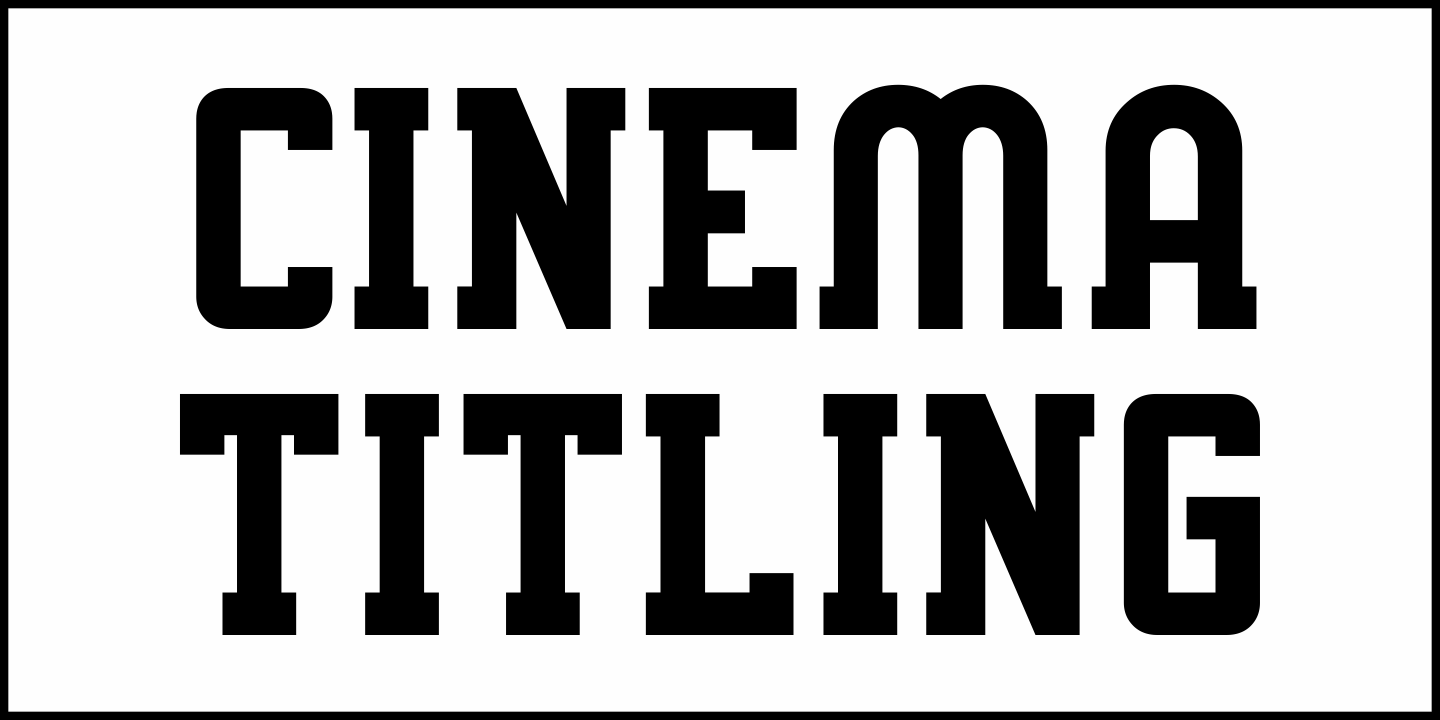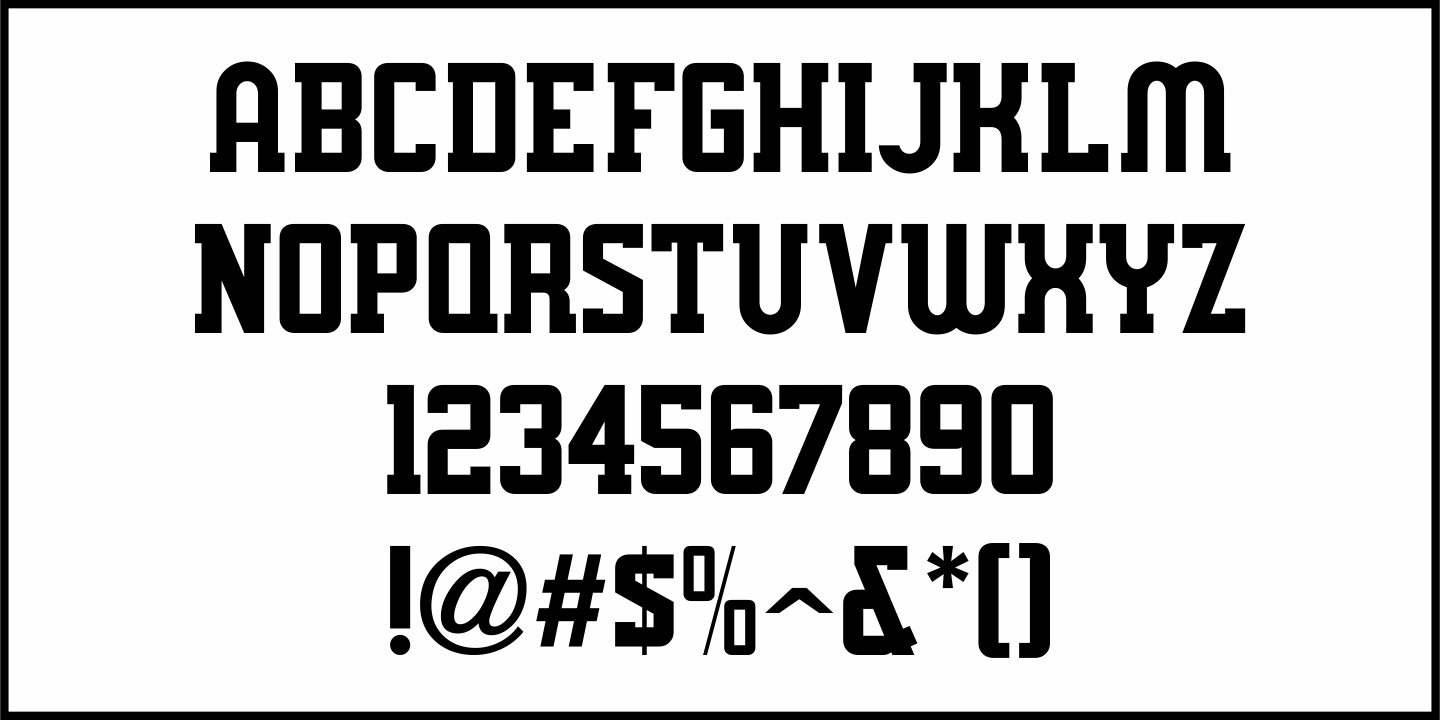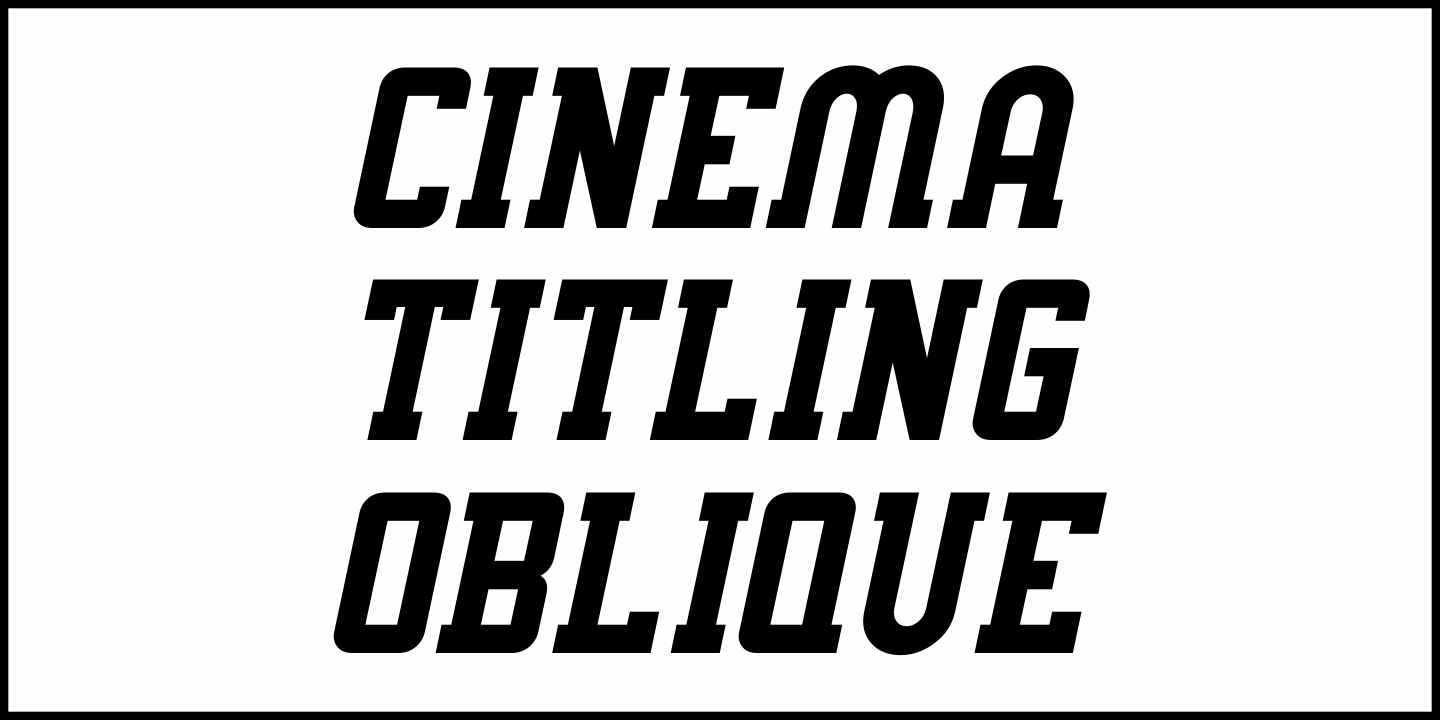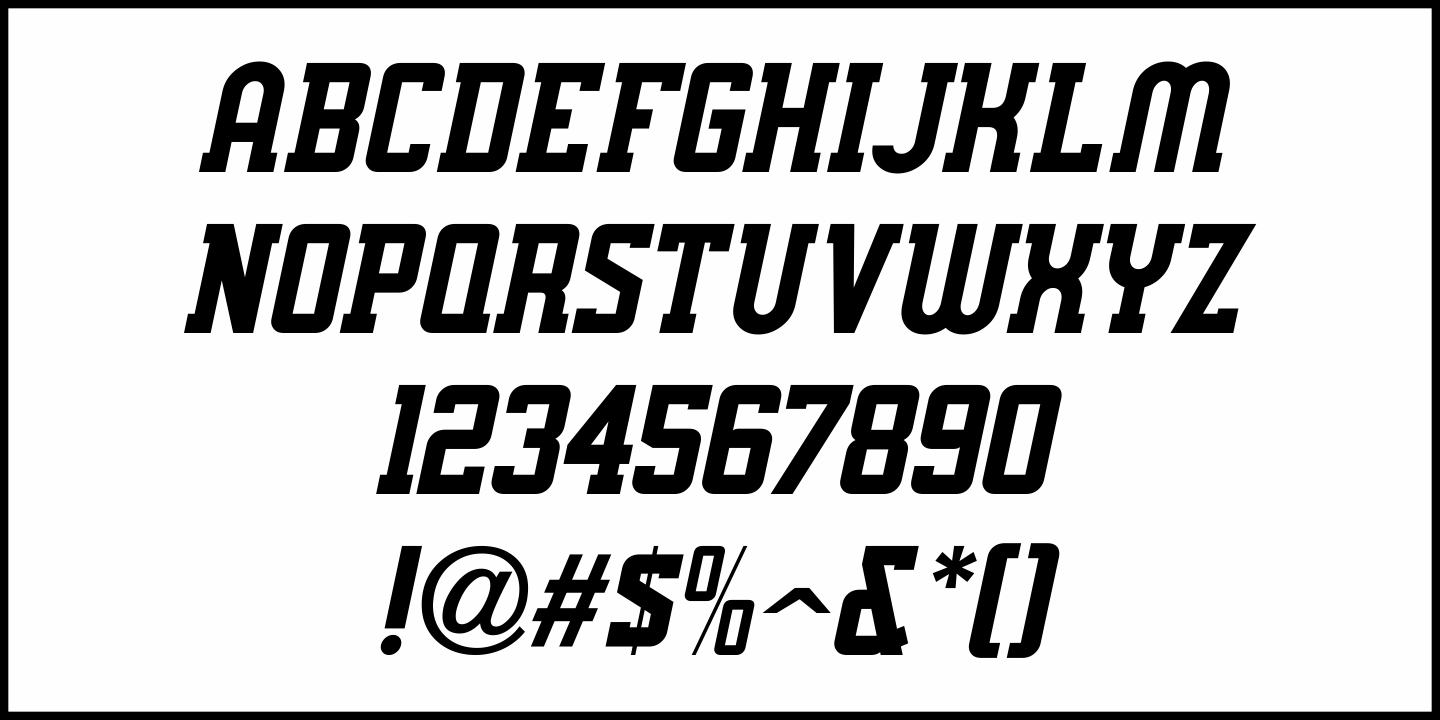
Cinema Titling
The hand lettered title for the film "Warrior's Husband" in the May 13, 1933 issue of Motion Picture Herald was rendered in a bold slab serif design with distinctive Art Deco features.
This is now available as Cinema Titling JNL, in both regular and oblique versions.